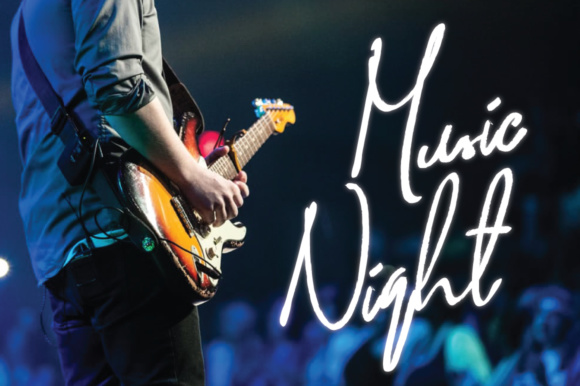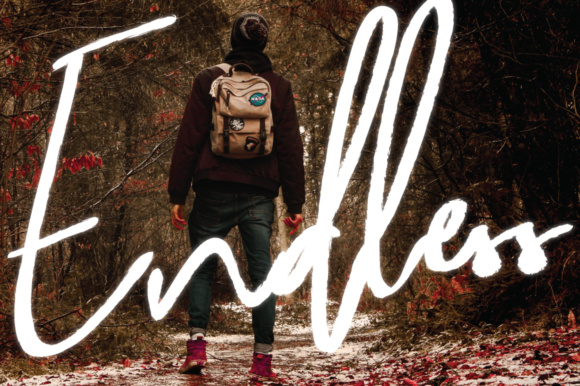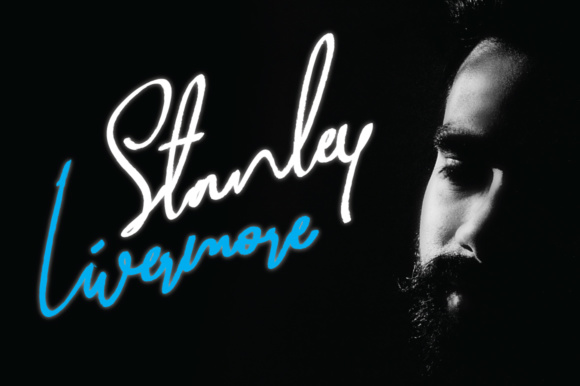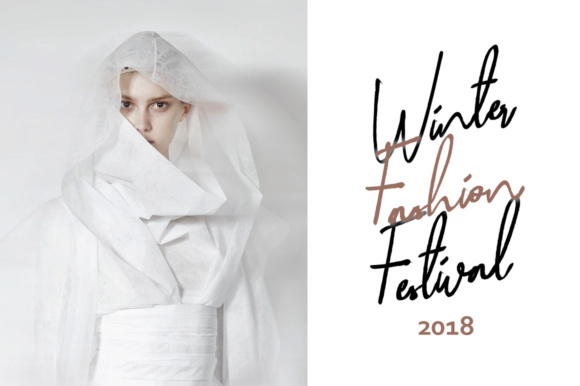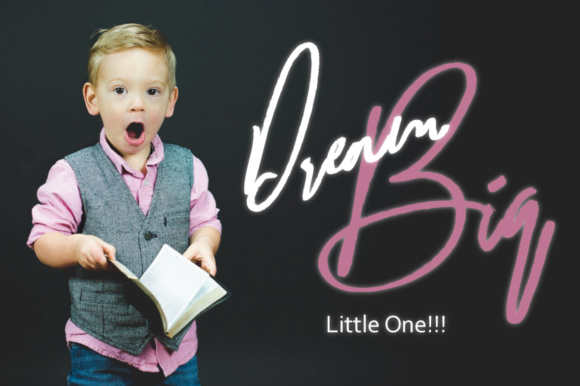
Biely Font
About Biely Font
Biely is a stunning and quick stroke marker script font, ideal for use in projects that need a real, handwritten feel for a personable type of branding.